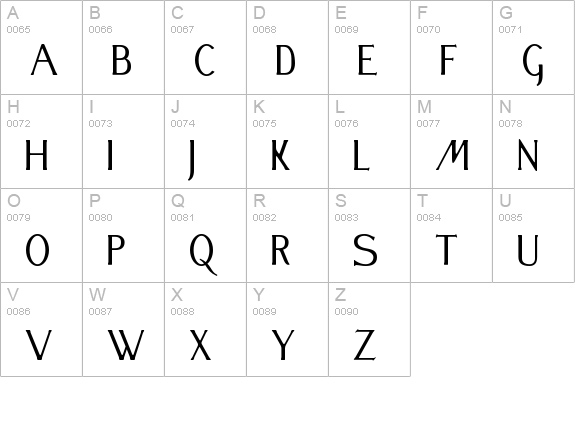
Festivalpl Font Details
Festivalpl font is a delightful and versatile typeface that exudes a festive and fun vibe. Its whimsical design and playful curves make it perfect for adding a touch of joy to your projects. Whether you're creating party invitations, greeting cards, or event posters, Festivalpl font will bring a sense of celebration to your designs. The best part? Festivalpl font is completely free to download at FontsMarket.com. You can easily access this charming font and start using it in your creative projects without any cost. Embrace the cheerful spirit of Festivalpl font and let your designs shine with its unique charm and personality.